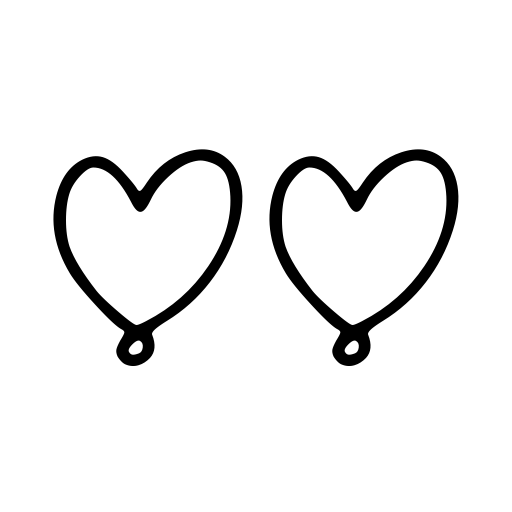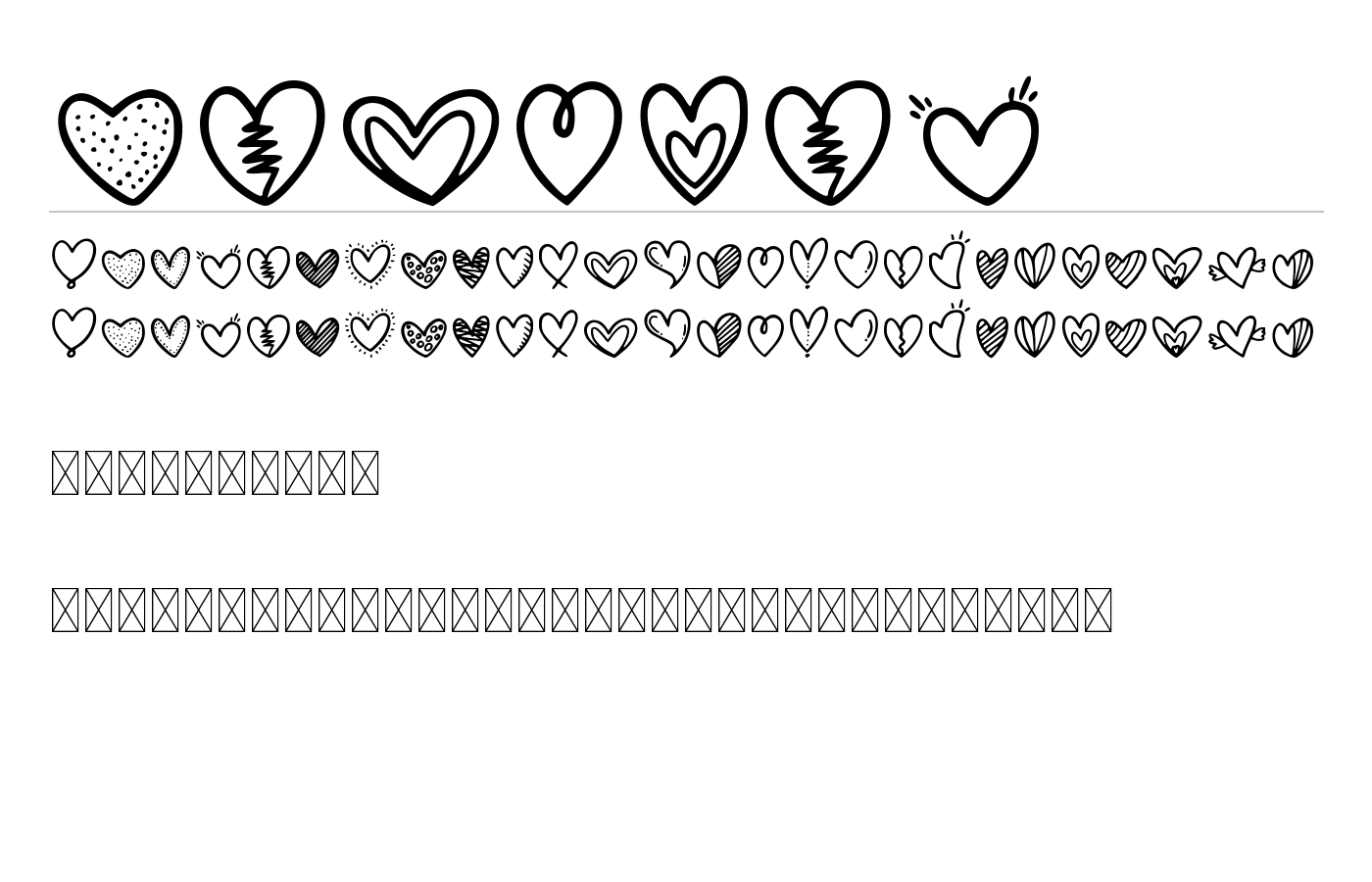
Beloved Font is a playful and whimsical symbol font featuring various hand-drawn heart designs, each with unique patterns and lively details. Its bold, irregular strokes and charming imperfections give it a friendly and informal personality, perfect for creative projects that want to convey warmth, love, and fun. This font works wonderfully in greeting cards, invitations, social media graphics, and any design needing a personal, heartfelt touch.
Beloved Font